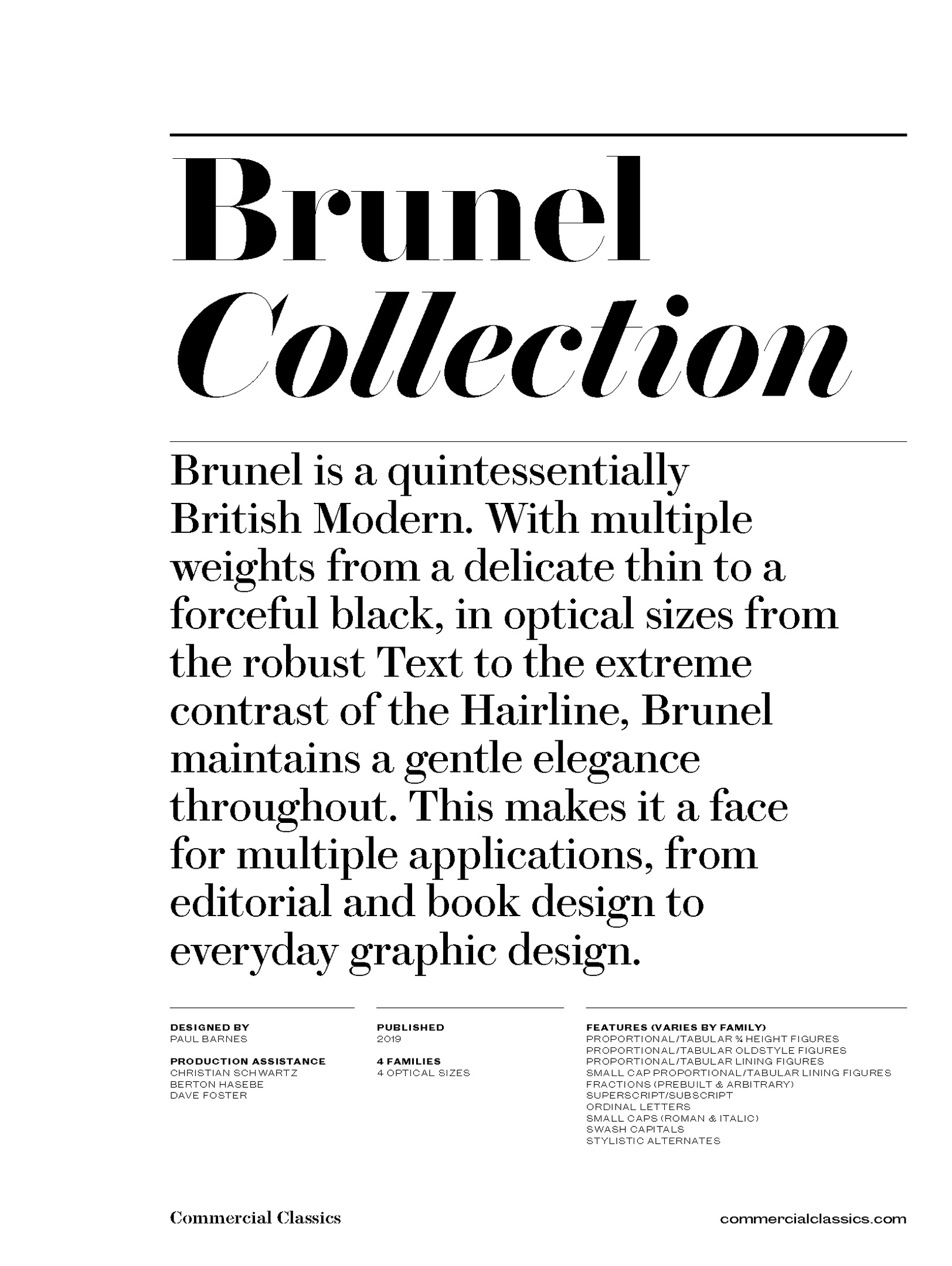
Brunel Font
Brunel Font is perfect for engineering firms, industrial design projects, architectural studios, construction companies, infrastructure branding, technical documentation, transportation systems, civil engineering materials, manufacturing identities, precision machinery labels, structural consultancies, and innovative engineering communications.
What makes Brunel Font exciting is its engineering excellence that captures the precision and innovation of industrial engineering through structurally sound letterforms that embody the legacy of great builders and infrastructure pioneers. This distinguished typeface represents the marriage of technical precision and aesthetic refinement, combining systematic construction with elegant proportions that resonates with audiences who appreciate both functional excellence and design sophistication. The font's engineered character and mechanical precision create immediate trust while maintaining the clarity essential for technical communications and complex engineering documentation. Its innovative personality makes it perfect for organizations that want to communicate expertise, reliability, and the transformative power of engineering innovation and infrastructure development.
The Brunel Font family includes light, regular, medium, and bold weights, each available with corresponding italic styles. The comprehensive family features technical alternates, structural ligatures, and engineering-inspired design elements that enhance the font's professional character and provide designers with complete engineering typography solutions for systematic brand applications.
Whether you're developing engineering brand identities, creating technical marketing materials, or designing infrastructure communications, Brunel Font Free Download delivers the engineering authority your precision projects require. This premium typeface excels in applications where technical credibility and systematic thinking are fundamental to organizational reputation and client confidence in engineering services. The font's engineering qualities work magnificently across technical documentation, project presentations, and digital platforms, making it an indispensable asset for designers serving engineering and construction industries. Engineering firms and infrastructure companies choose this font for its ability to communicate technical expertise while maintaining perfect readability and professional appeal. The comprehensive character set supports multiple languages and includes specialized engineering symbols, expanding its versatility for international technical applications and multilingual engineering communications. Professional designers appreciate its systematic design approach and consistent performance across complex technical environments. When you implement this exceptional typeface in your engineering communications, you're selecting a typography solution that celebrates technical excellence and engineering innovation, ensuring your firm connects with clients while maintaining the professional credibility essential for success in competitive engineering markets and infrastructure industries that build the foundations of modern civilization through precise planning, innovative solutions, and unwavering commitment to structural integrity and engineering excellence in today's complex technological landscape.